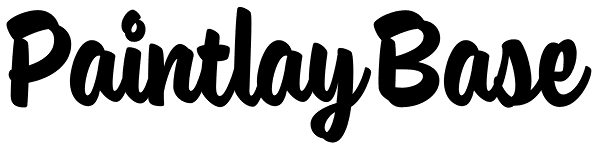
Paintlay
Paintlay is a casual and laid-back brush script font. Bouncy baseline, upright strokes and soft forms are the main characteristic of Paintlay. What sets this font apart from others is the layers that include Base layer, two different highlight...